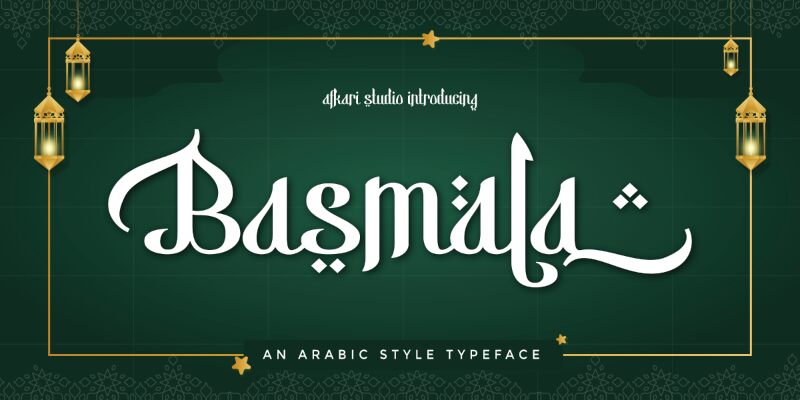
Basmala font designed by Afkari Studio is a free foreign font with a sophisticated touch that can add the elegance you seek to your projects. The design features several unique ligatures and stylistic alternates that can be combined to form magnificent projects. Your last-name initial is always stylish when typed in Basmala font.
Basmala is a great font for posters, headlines, ornaments, books, wedding invitations, labels, logos, visiting cards, and more. The cultural font is very distinguished and will surely capture the viewer’s attention.
Basmala - An Arabic Style Typeface